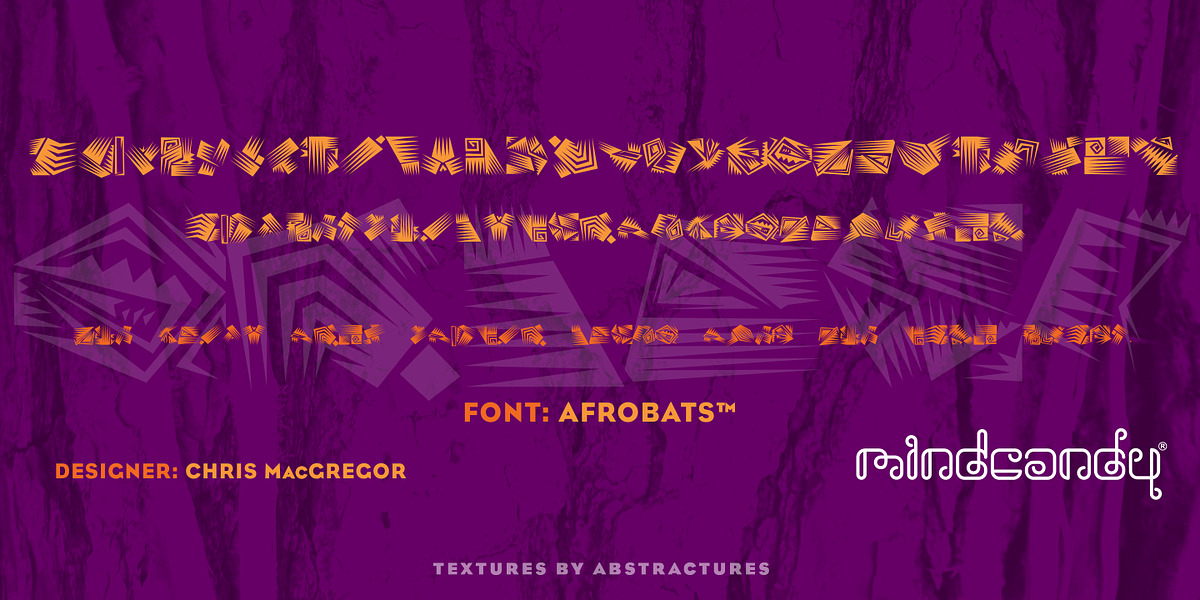
AfroBats™
AfroBats™ is a dingbat font created by Chris MacGregor in 1996. It features symbols inspired by the art and design of Central and South Africa, making it ideal for adding a touch of African flair to patterns, wallpaper, or graphic design projects.